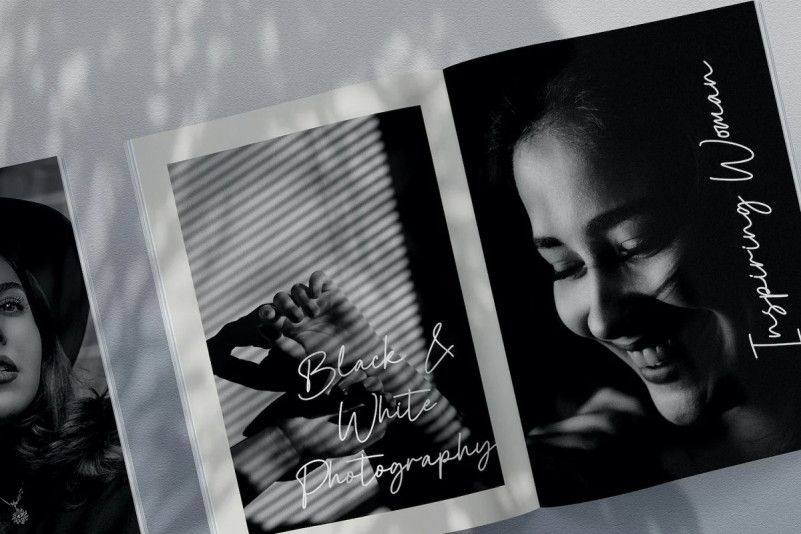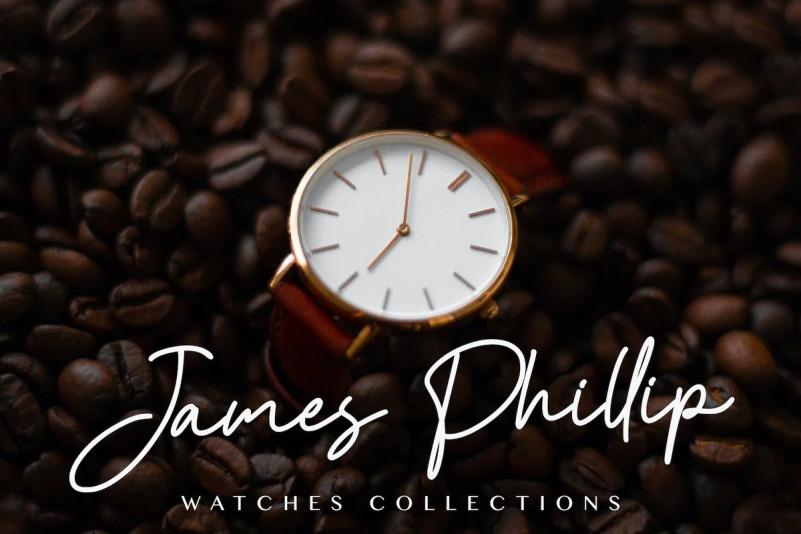
Pebby Script Font
Pebby a bouncy handwritten font is a beautiful script font with beginning and ending swash. It features feminine-themed characters that will take your projects to the next level!
This font is PUA code which means you can easily access all the glyphs and alternates that are full of love! It also features many special features including glyphs and alternate. font designs that are made for various vector designs, printing such as digital wedding blogs, online shops, social media, while printing can be used in the field of product clothing, accessories, bags, pins, logos, business cards, watermarks and many others …
so it can make your product look cute and attractive, and also Multilingual support!!!